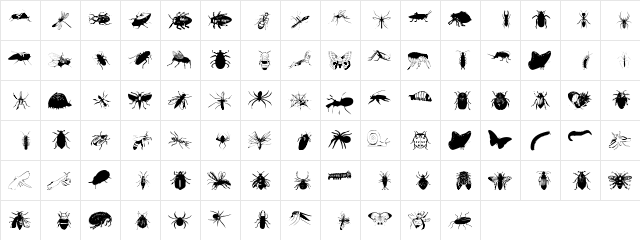
Lemay's Bug Regular
Design Context for Lemay's Bug Typeface
Lemay's Bug is a composed and adaptable typeface that performs quietly and consistently across a wide range of design contexts.